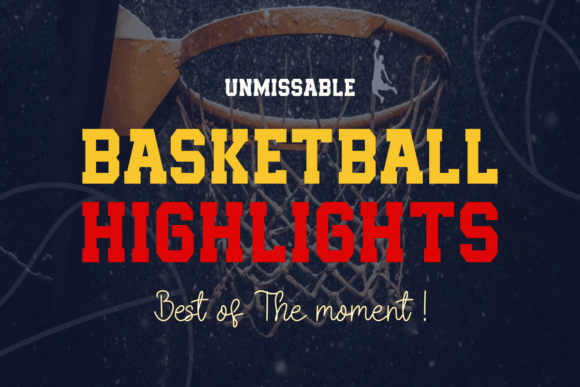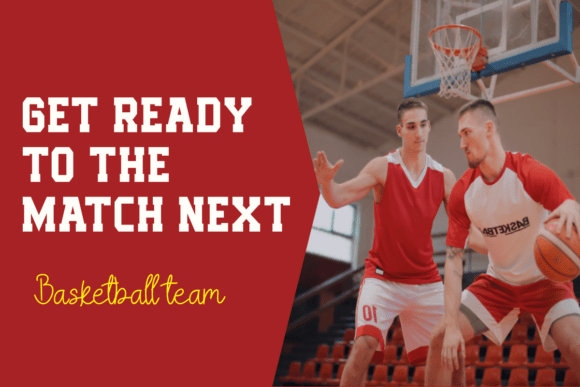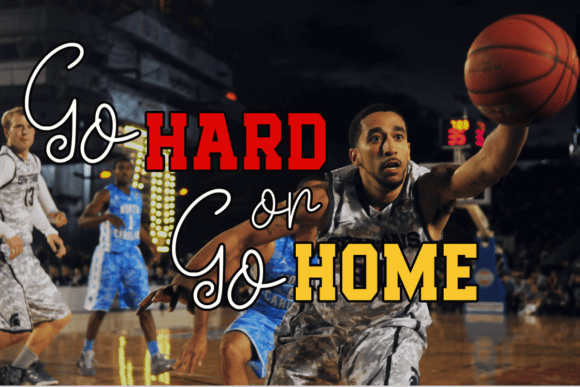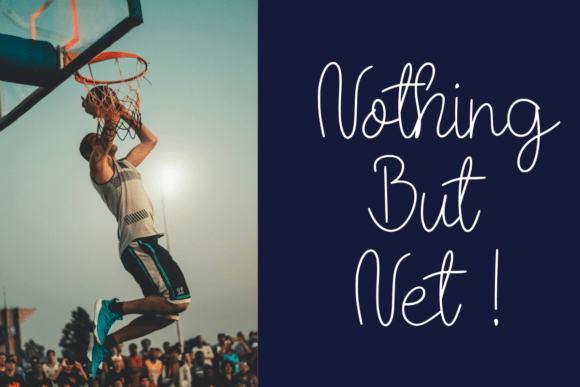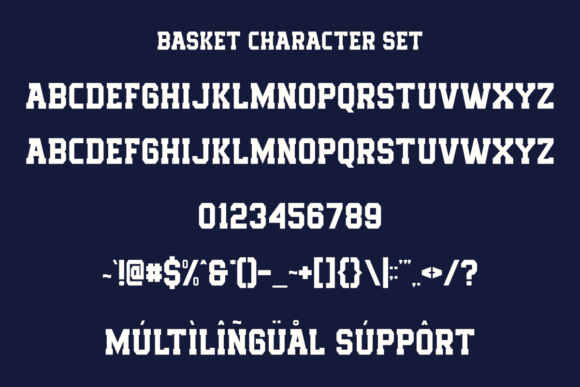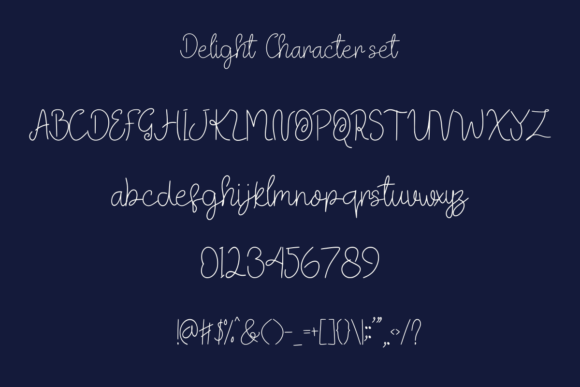
Have you ever been in the middle of brainstorming a project and suddenly, out of nowhere, a spark of creativity hits you? It’s like the universe is whispering ideas in your ear, and you know exactly what you need to bring your vision to life. That’s exactly what happened to me when I stumbled upon the perfect font combination – the Basket Delight Font. This sporty varsity and college style font is a game-changer, and I’m excited to share its story with you.
The Basket Delight Font is a masterful blend of handwritten monoline script, designed to elevate any professional project. Whether you’re working on a logo, title, poster, brand, promotion, or product packaging, this font combination is sure to make your design stand out. As a designer, you know how crucial the right font can be in making your project shine, and that’s where the Basket Delight Font comes in – a valuable addition to any designer’s toolkit.
Basket Delight Font Key Features
• Unique Characteristics: Distinctive basketweave-inspired design, adding a touch of whimsy and elegance to any text-based project.
• Font Style: Available in Regular, Italic, Bold, and Bold Italic styles, providing flexibility for various design applications and tone requirements.
Basket Delight Font Review
I’ve had the chance to work with the Basket Delight font, and I must say it’s a delightful addition to any design project ✨. The font’s playful, whimsical feel is perfect for creating eye-catching headers and titles. The curly, handwritten style adds a touch of warmth and personality to any text, making it ideal for brand identity and advertising materials.
The font’s best feature, in my opinion, is its versatility. It’s suitable for a wide range of applications, from digital displays to print materials, and can be used in both modern and vintage-inspired designs ✨. Additionally, the font’s clear, legible lines make it easy to read, even at smaller font sizes.
• ⚠️ Limited character set: The font’s character set is relatively small, which can be a limitation for designers who need to create complex text layouts or require specific characters.
• ⚠️ Not ideal for body text: While the font is great for headers and titles, it may not be the best choice for body text due to its playful, cursive style.
Overall, I think Basket Delight is a solid choice for designers who want to add a touch of whimsy and personality to their projects ✨. While it has some limitations, its versatility and playfulness make it a great addition to any design arsenal.
To get the most out of Basket Delight Font, use it for:
• Crafting invitations and greeting cards.
• Designing packaging and branding materials.
• Creating digital art and illustrations.
Alternatives to Basket Delight Font
Great Vibes Font is a modern, elegant script font that is perfect for creating a warm and inviting atmosphere in designs. It is ideal for use in branding, invitations, and other creative projects where a touch of sophistication is needed.
Compared to Basket Delight Font, Great Vibes Font has a more refined and polished look, making it suitable for a wider range of applications. While Basket Delight Font has a more playful and whimsical feel, Great Vibes Font is more versatile and can be used in both formal and informal designs.
Alex Brush Font is a beautiful, handwritten script font that is perfect for creating a personal and emotional connection with the audience. It is ideal for use in branding, packaging, and other design projects where a touch of personality is needed.